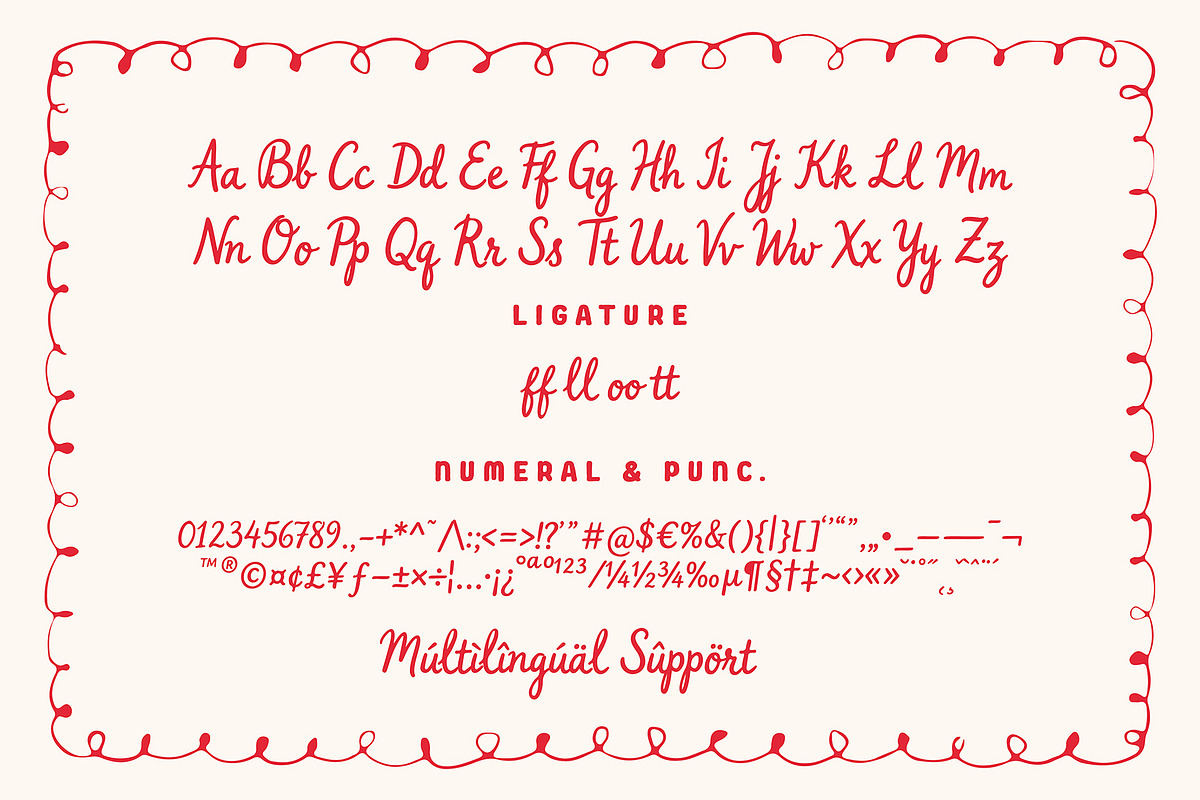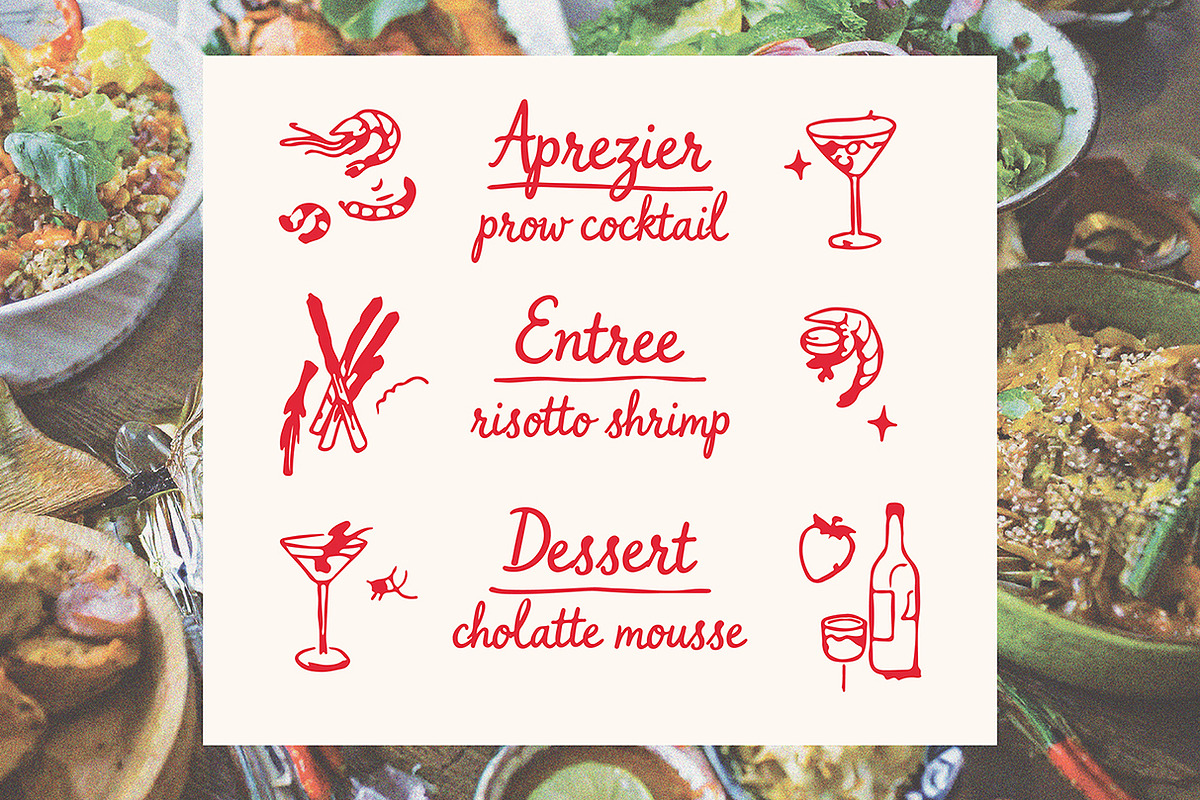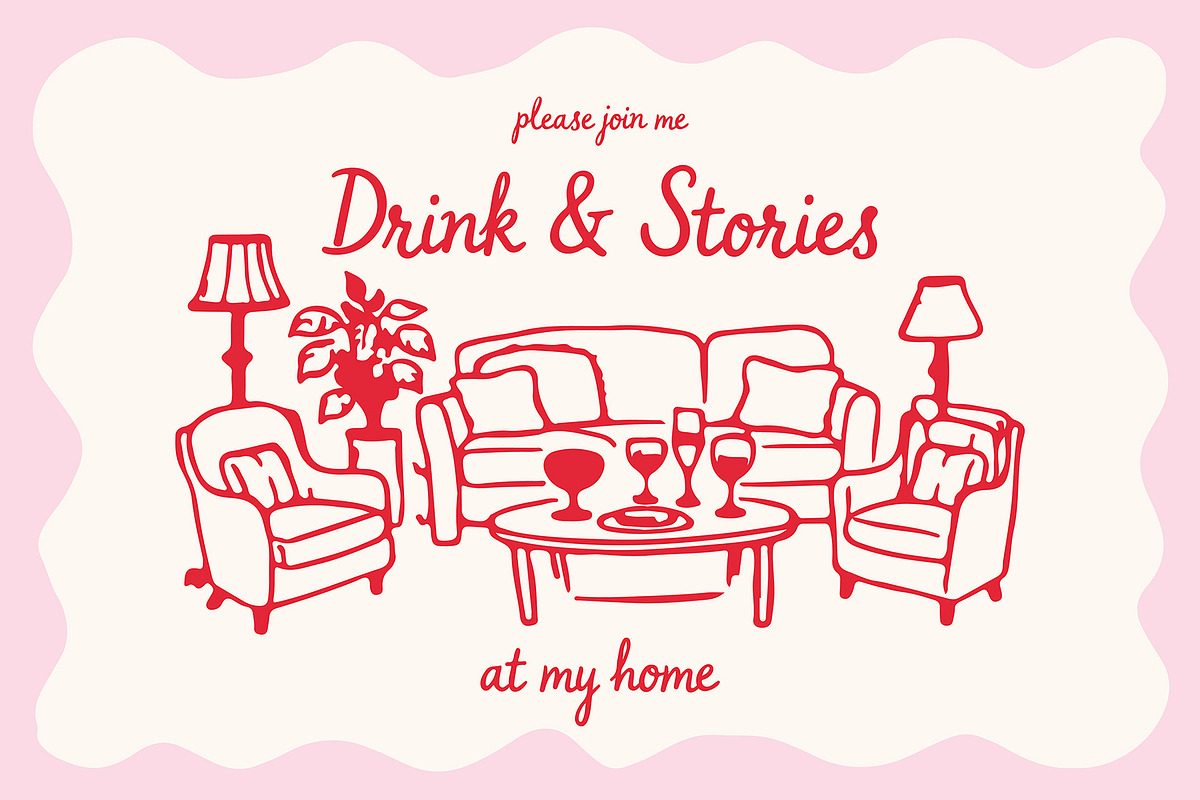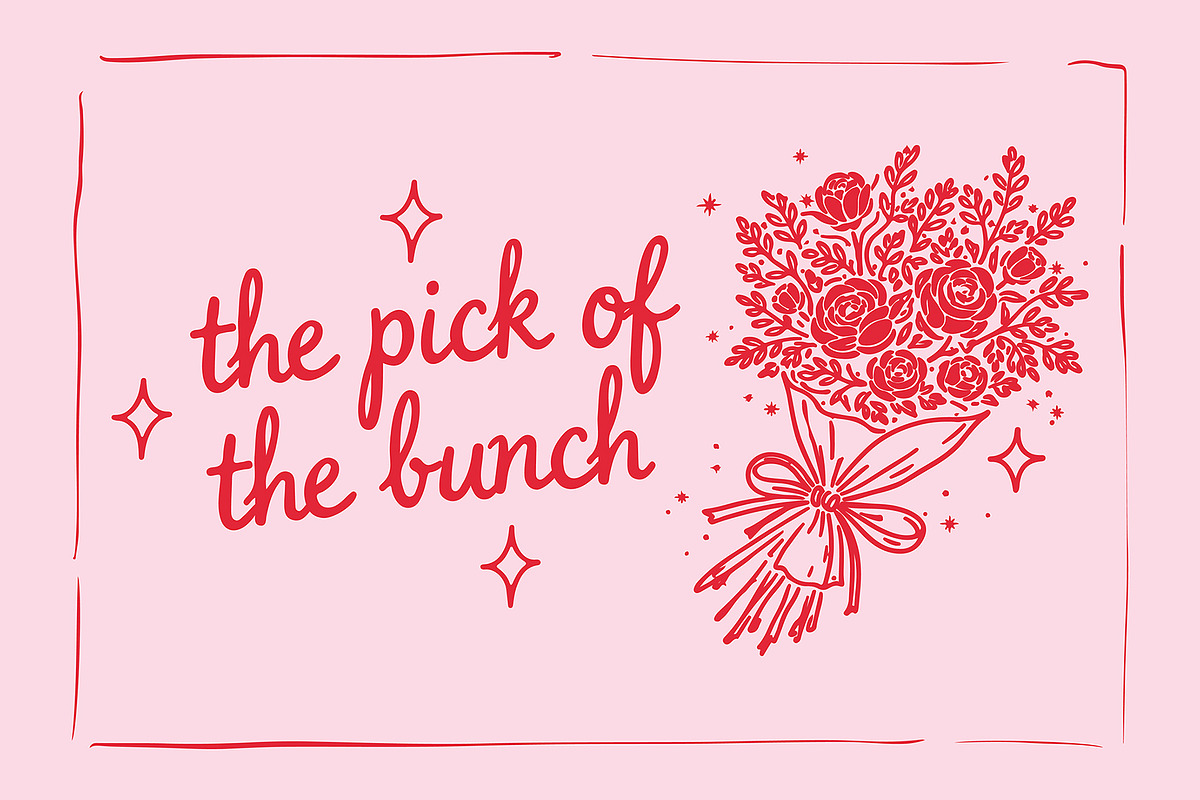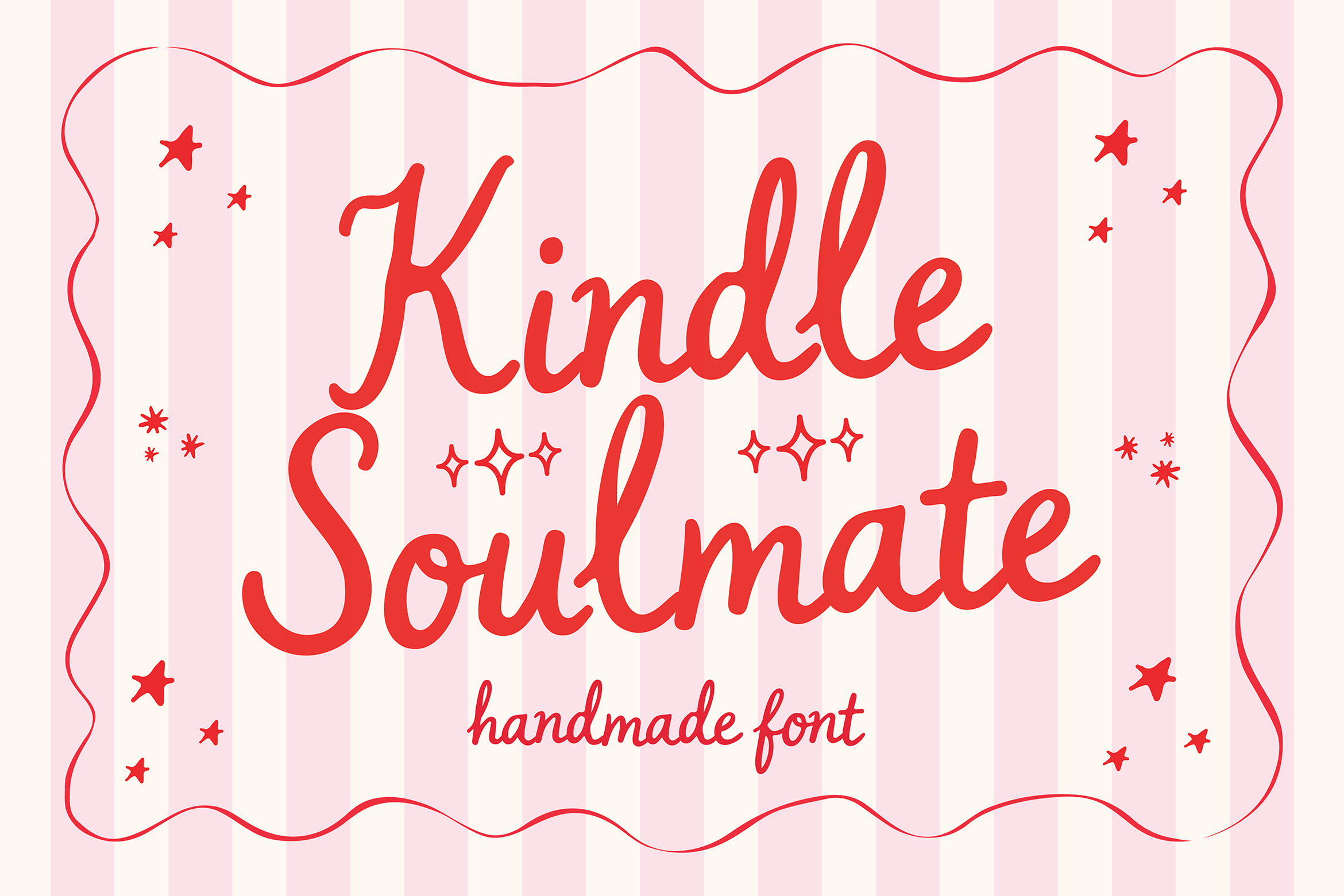
Kindle Soulmate Handmade Script Font
Kindle Soulmate is a charming handmade script font that captures the warmth and spontaneity of true handwritten lettering. With its smooth curves, playful swashes, and slightly imperfect strokes, this font brings a natural, personal touch to any design.
Designed to feel both sweet and expressive, Kindle Soulmate radiates a soft romantic vibe while remaining versatile enough for modern creative projects. Whether you're crafting logos, branding, packaging, social media graphics, or editorial layouts, this font adds a distinctive and heartfelt character.
Its flowing letterforms and carefully crafted ligatures create seamless connections, enhancing the authentic handwritten feel. The included stylistic details make every word look lively and full of personality.
* Uppercase & Lowercase
* Numerals & Punctuation
* Ligatures (ff, ll, oo, tt)
* Multilingual Support
Kindle Soulmate is more than just a font—it’s a creative companion that helps your designs feel warm, friendly, and full of life.